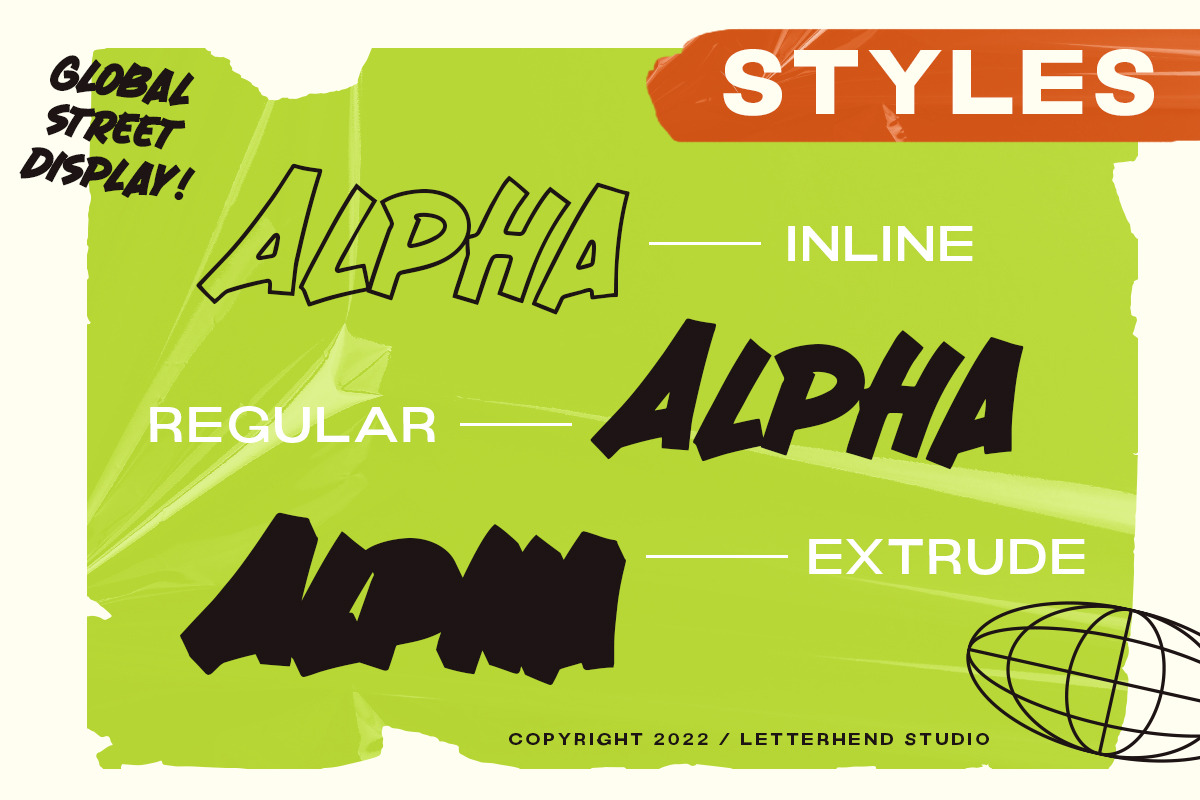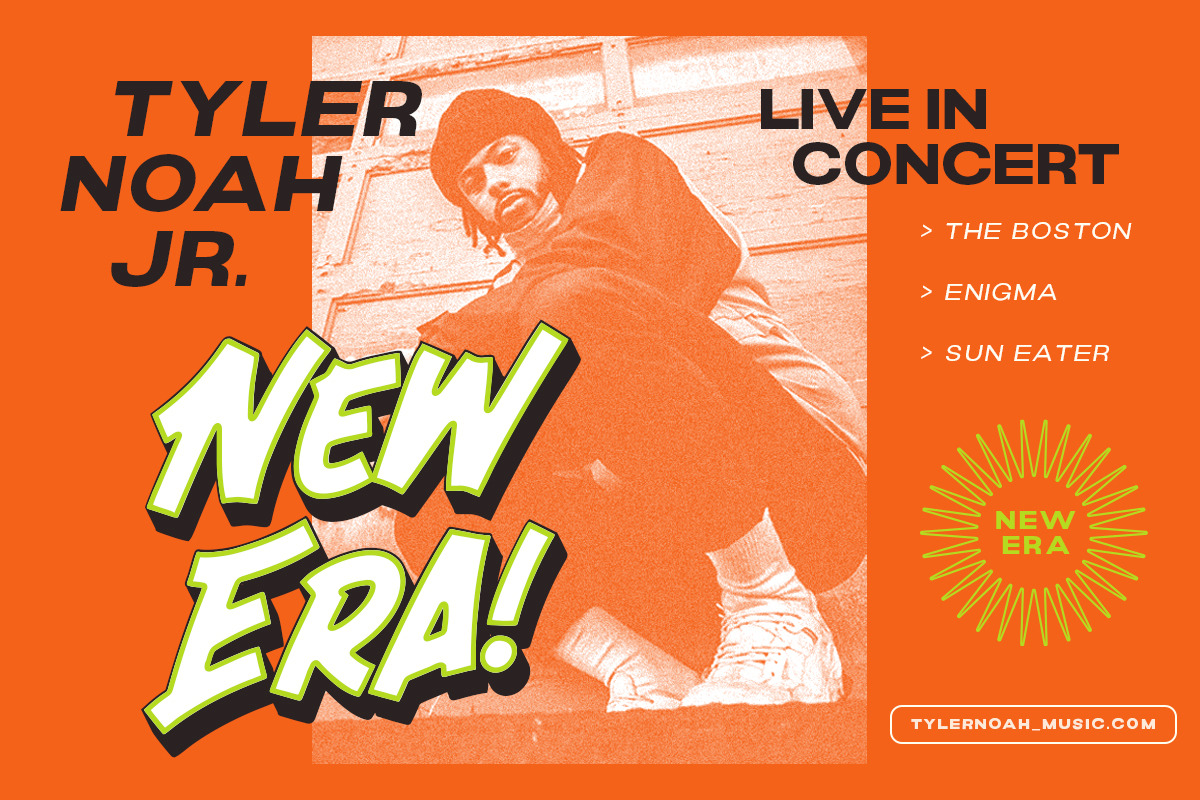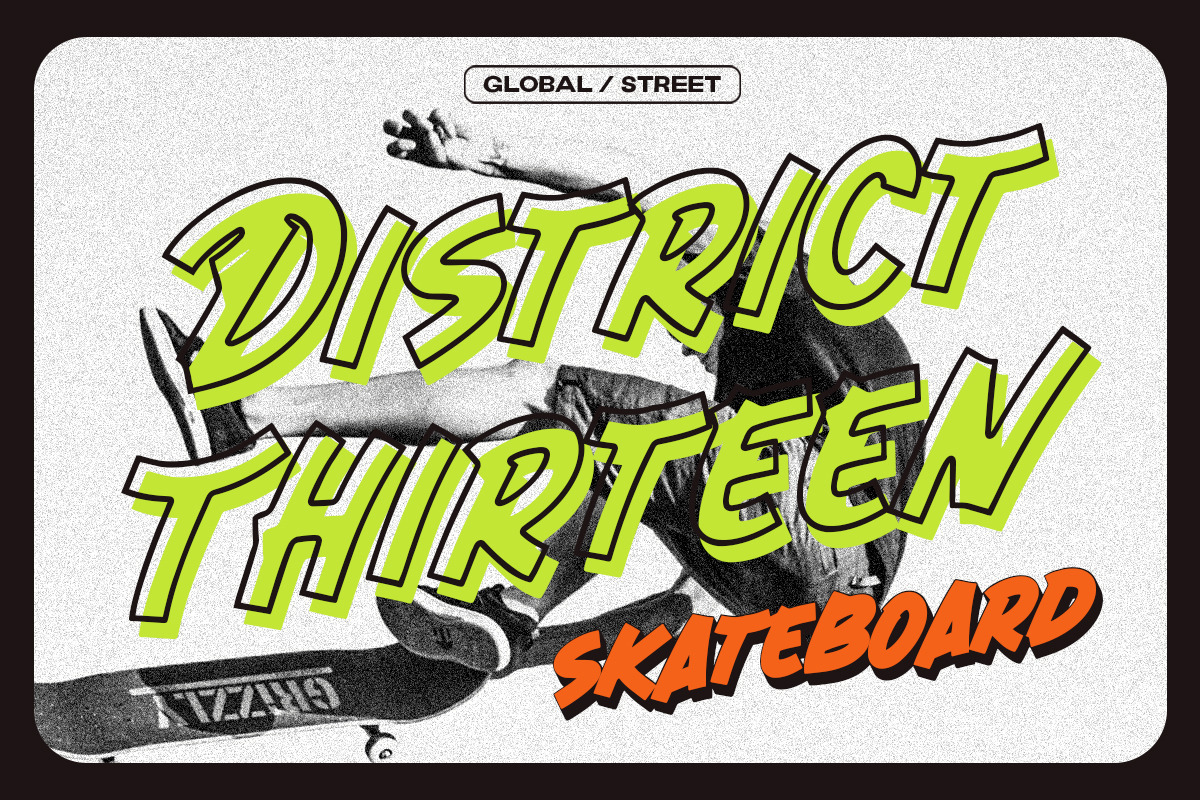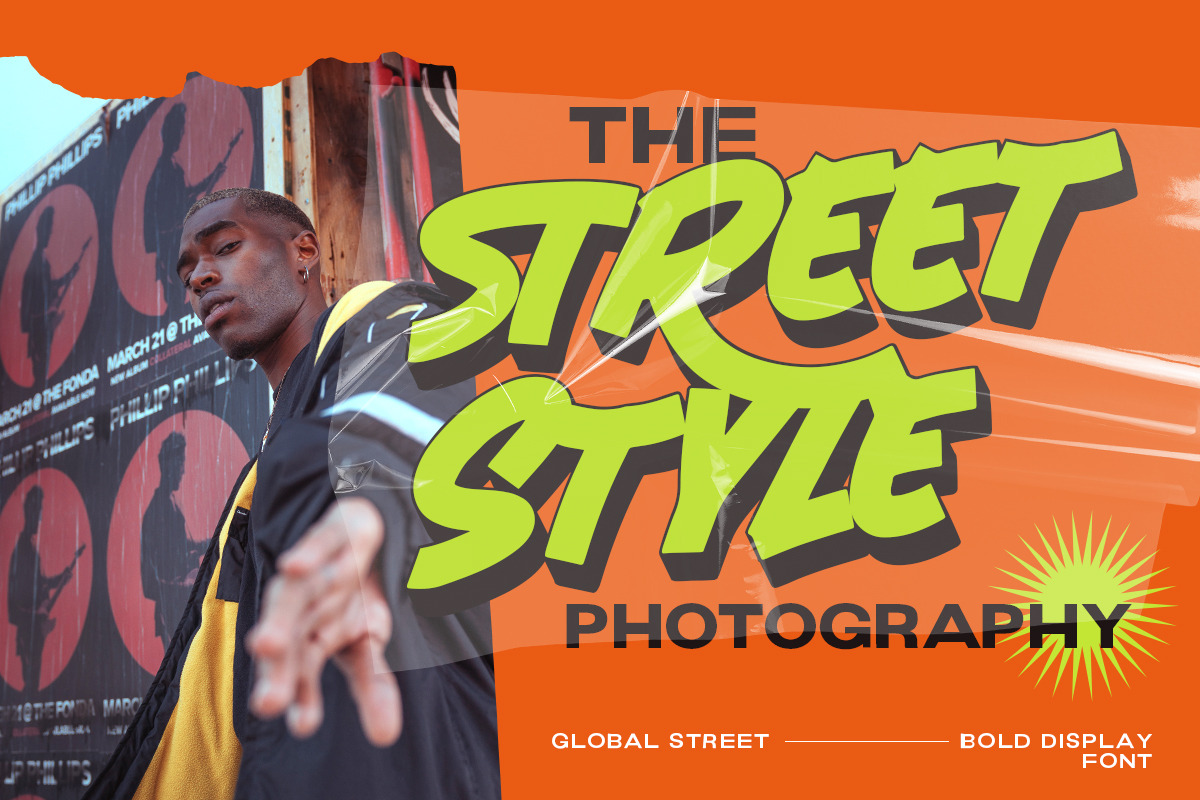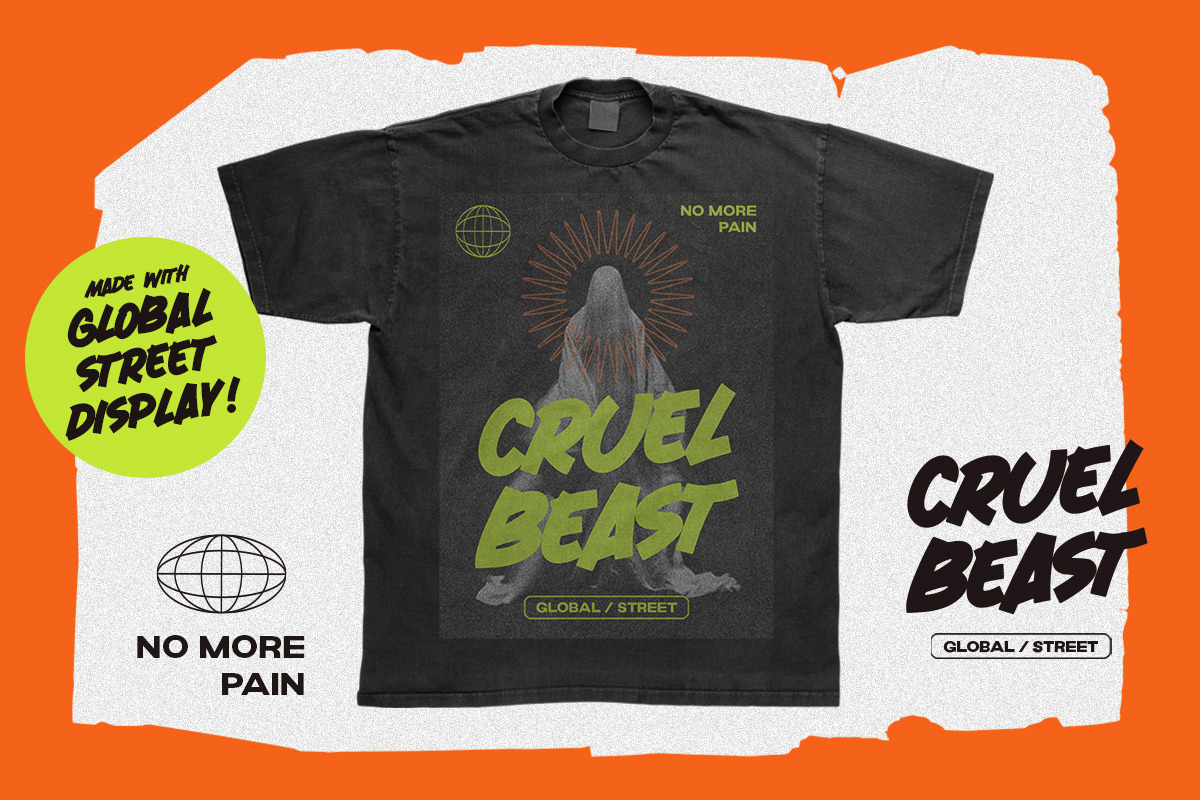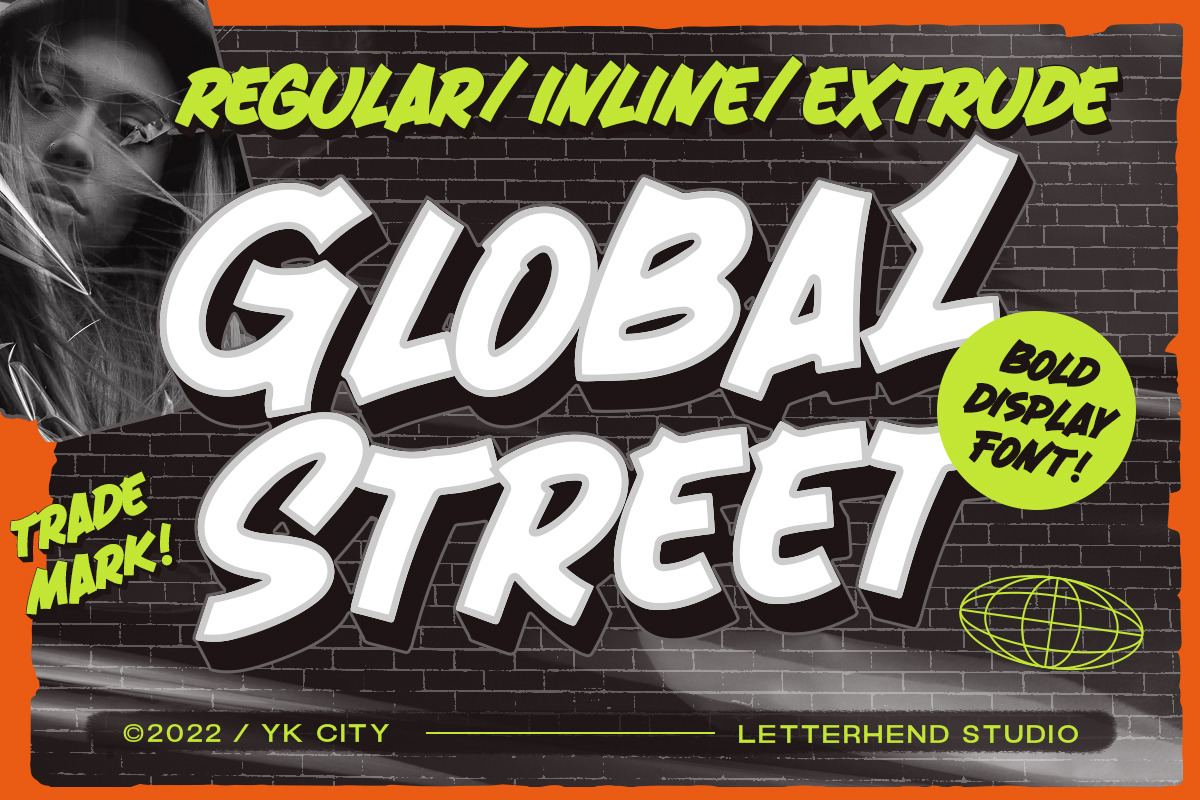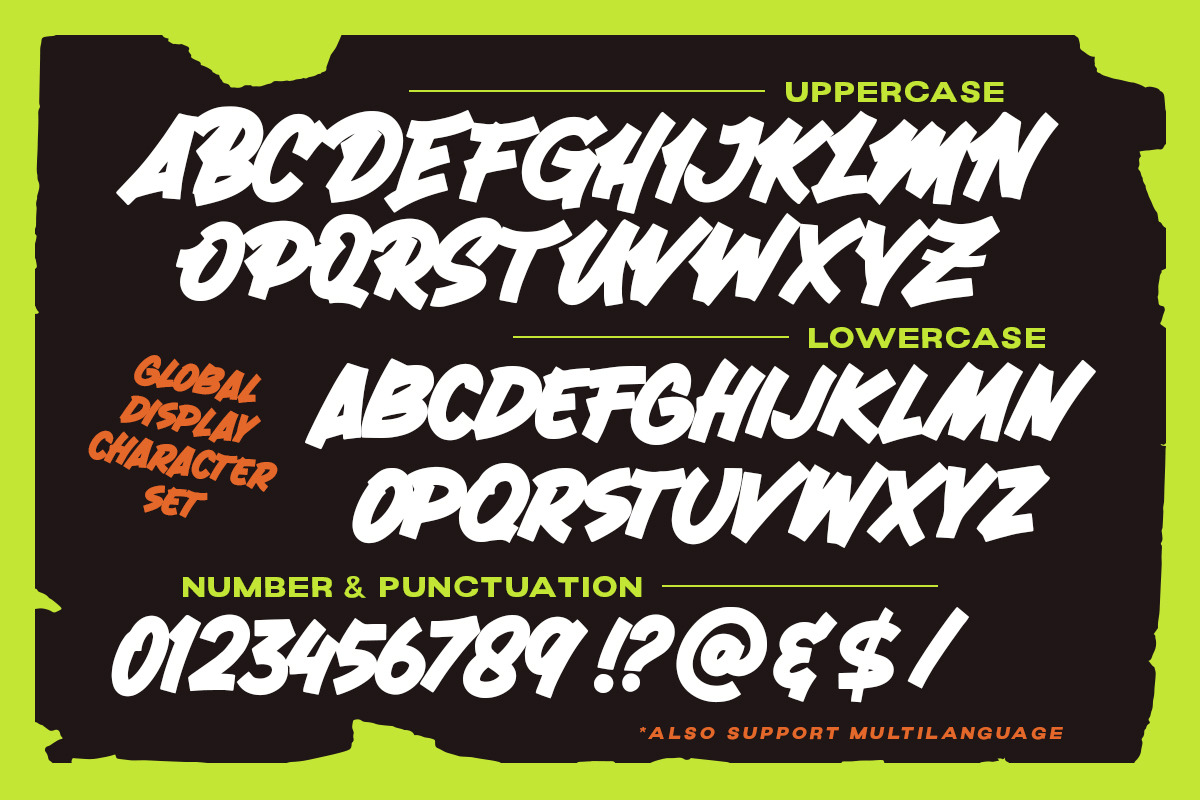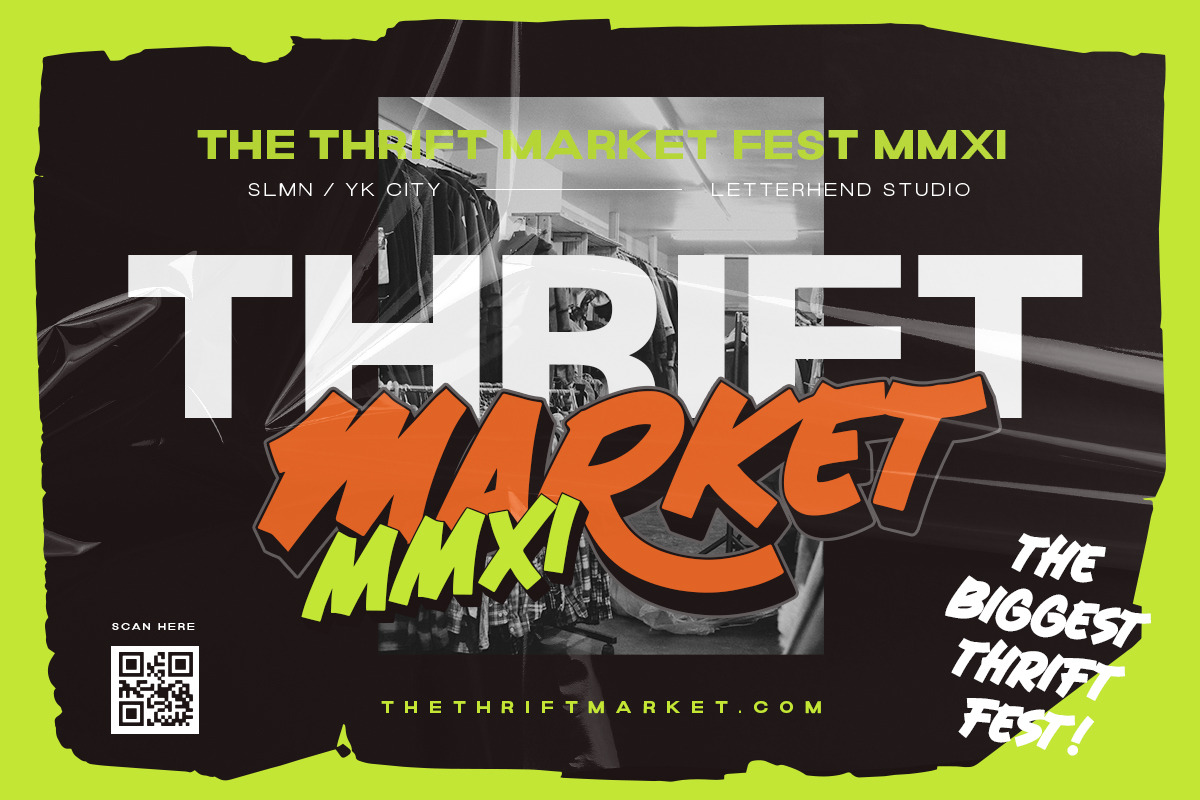
Global Street - Bold Display Font
Global Street is a bold font with playful & cartoonish looks. This type of font perfectly made to be applied especially in cartoon or child theme which is need a standout font, and the other various formal forms such as invitations, labels, logos, magazines, books, greeting / wedding cards, packaging, fashion, make up, stationery, novels, labels or any type of advertising purpose.
- Reguler, inline & extrude version
- Upercase & lowercase